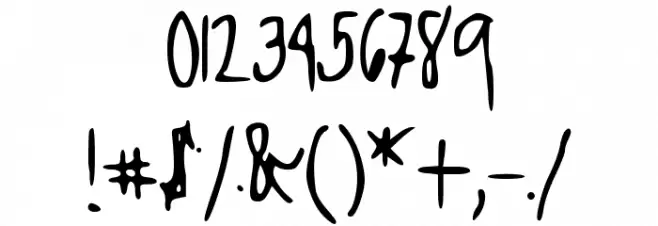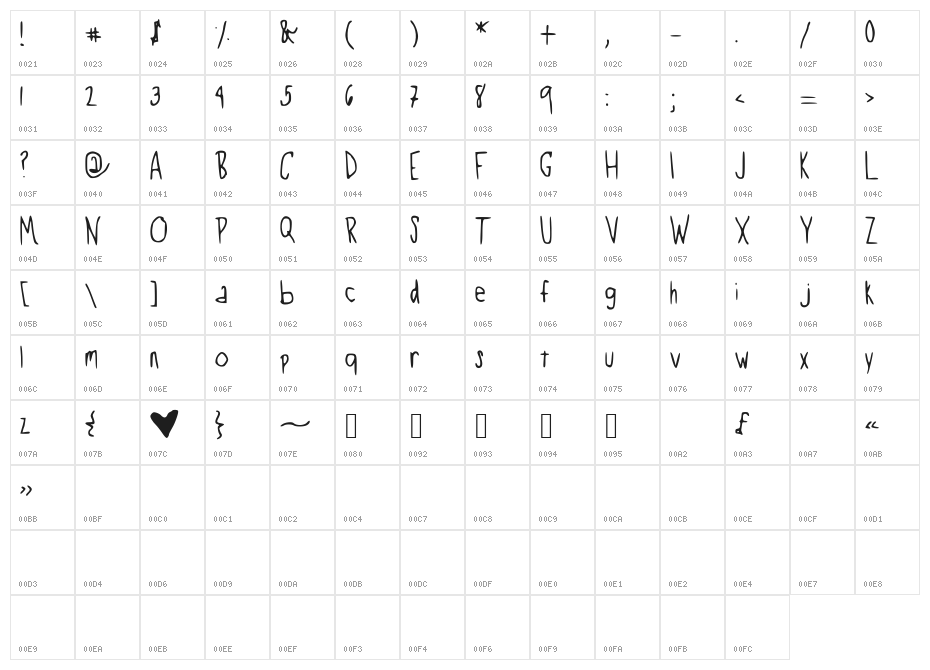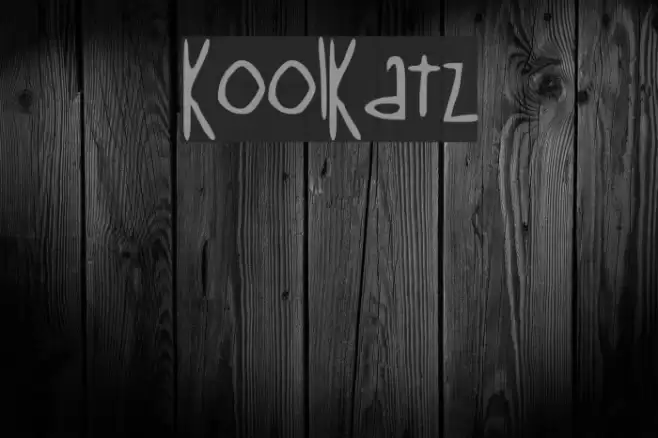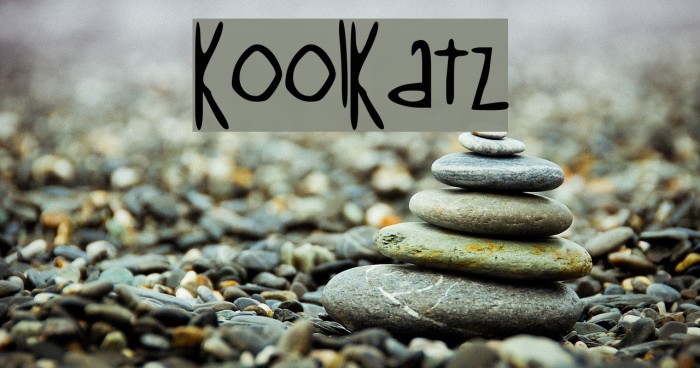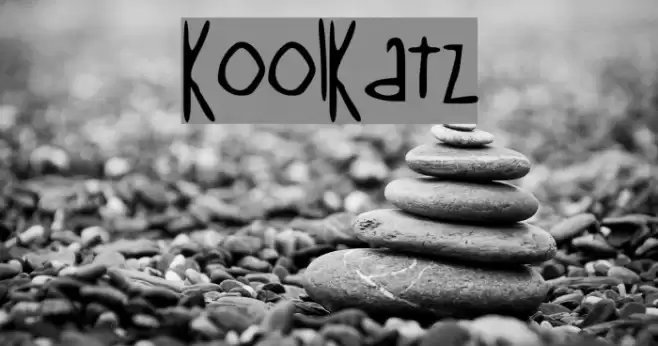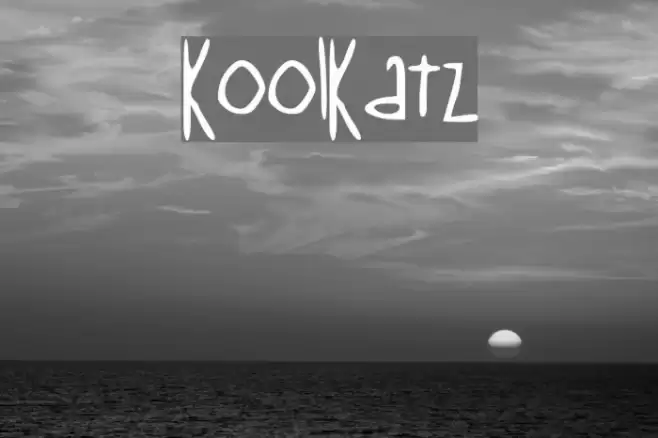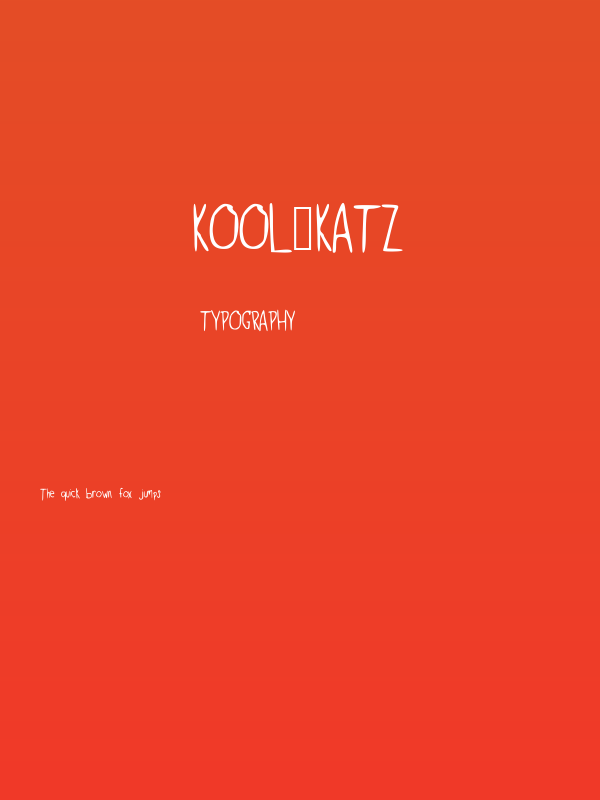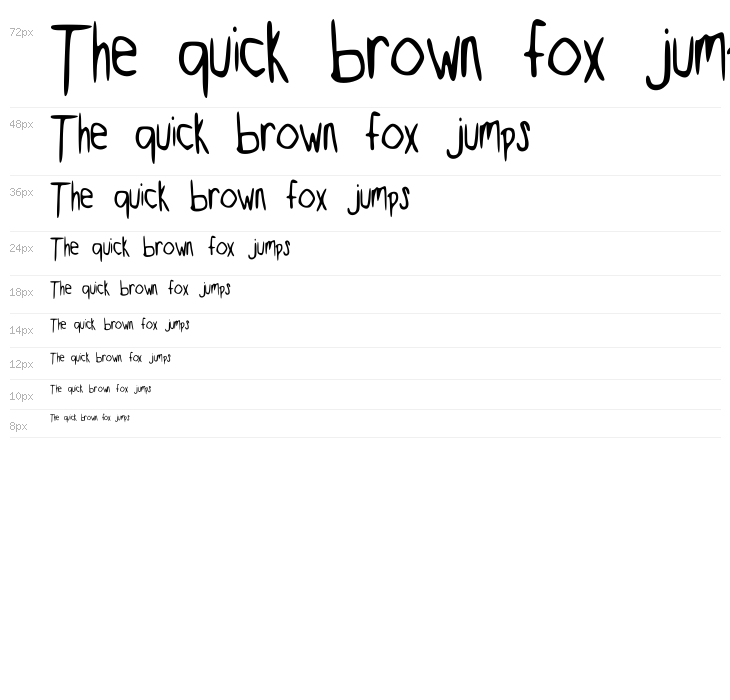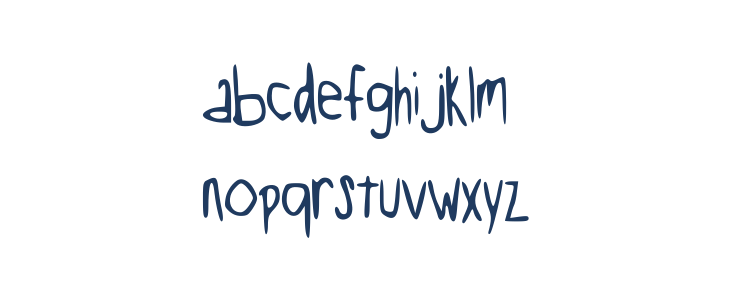
Kool_Katz Font
Kool_Katz Description
This playful and quirky font features a handwritten style with a casual, informal appearance. The letters have a whimsical, uneven quality, with varying stroke widths that add to its charm. The uppercase and lowercase letters are distinct, with a slightly exaggerated height that gives the font a lively, energetic feel. The numbers and special characters maintain the same playful aesthetic, making this font suitable for creative and fun projects. Its unique style is perfect for capturing attention and conveying a sense of individuality.
| Proposed Projects | Ideal for children's books, greeting cards, playful branding, and creative posters. |